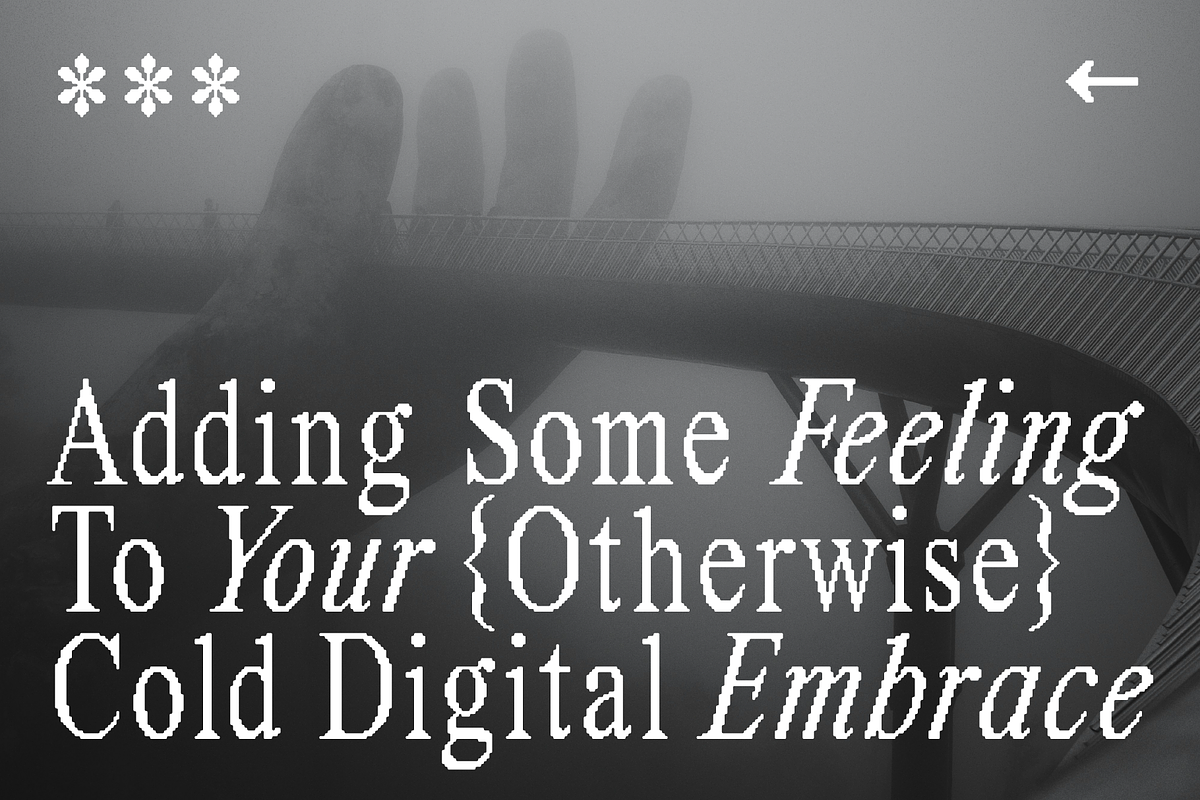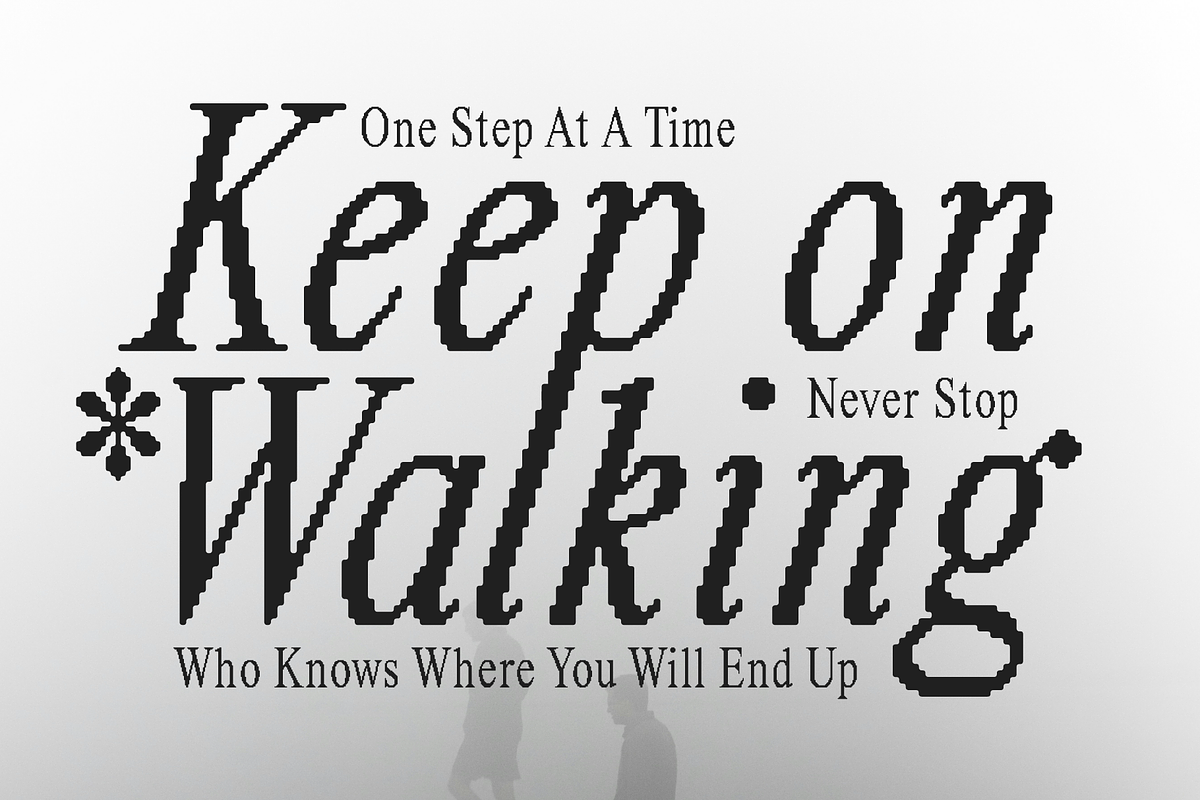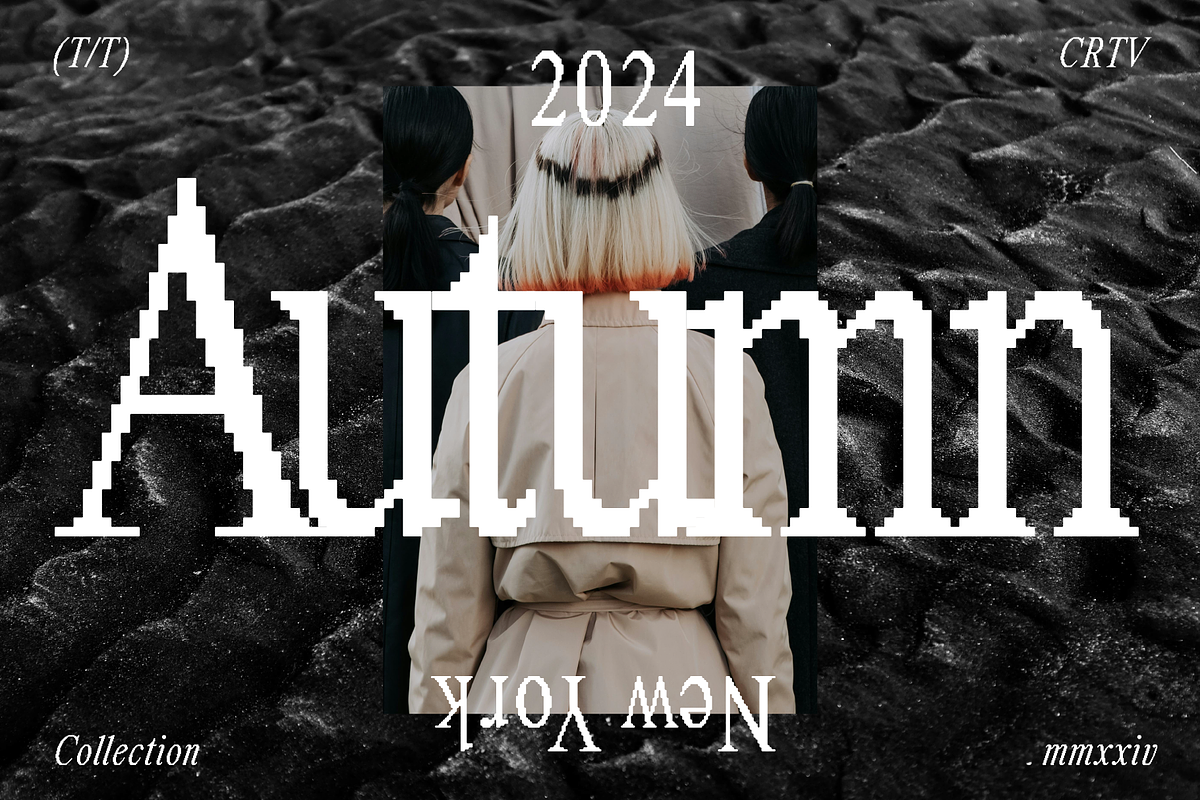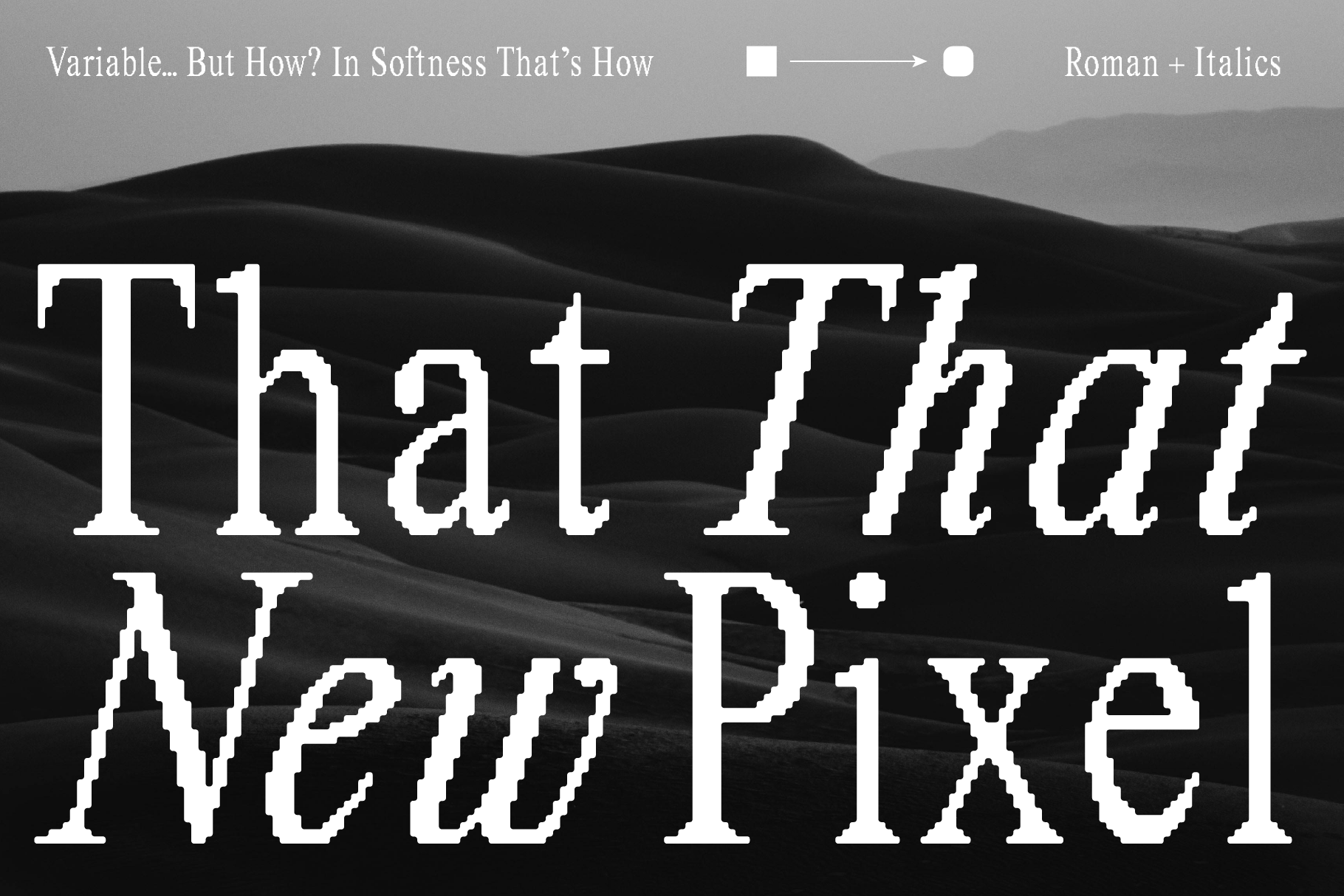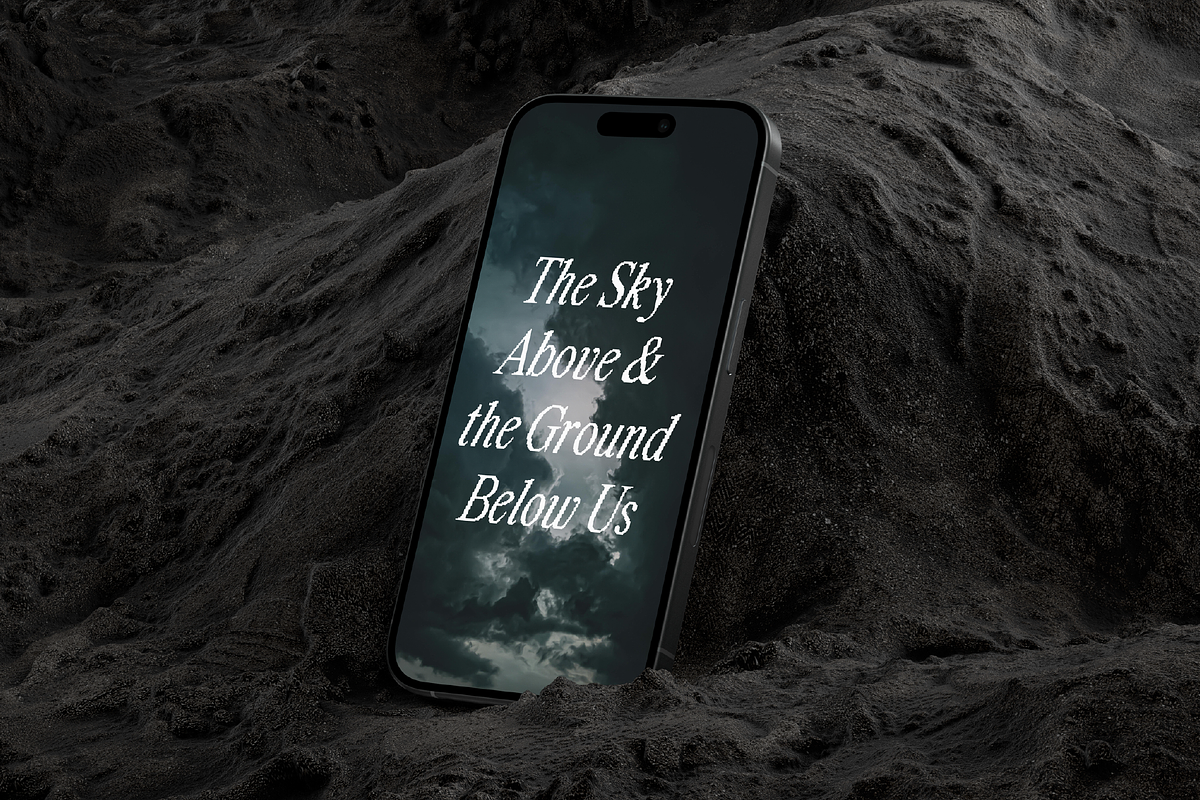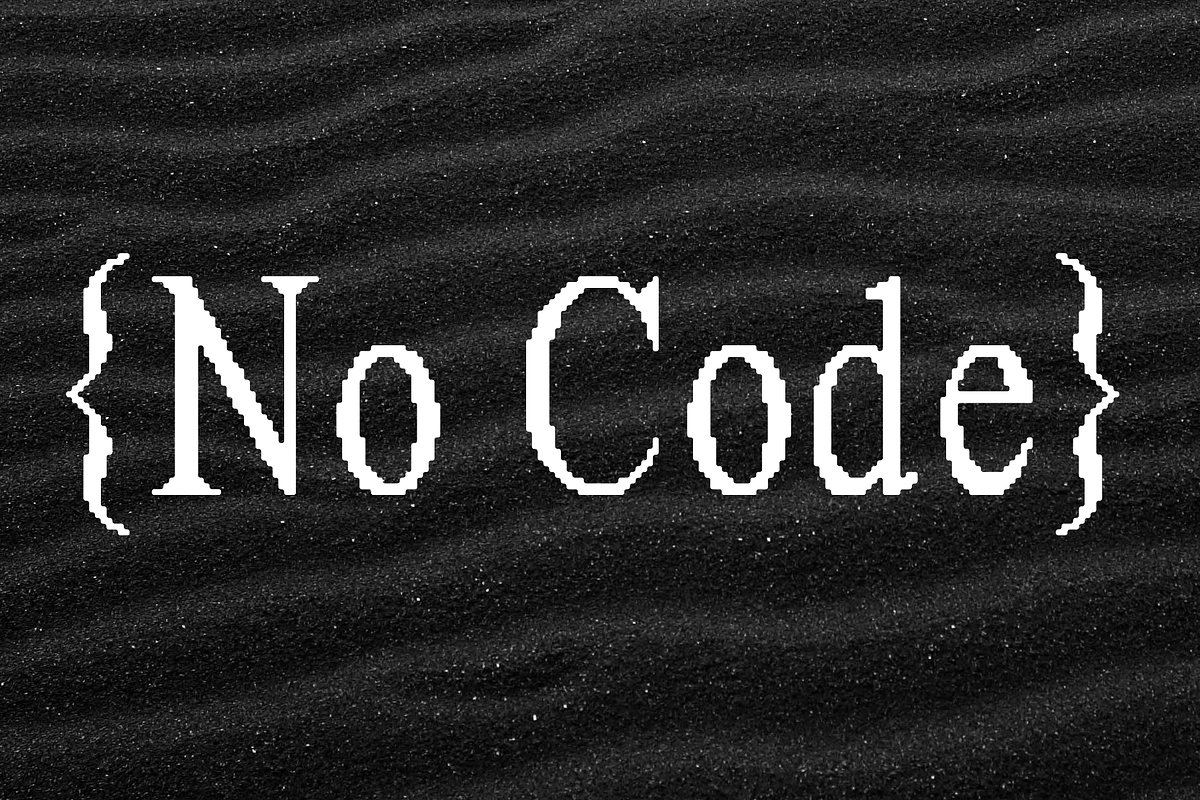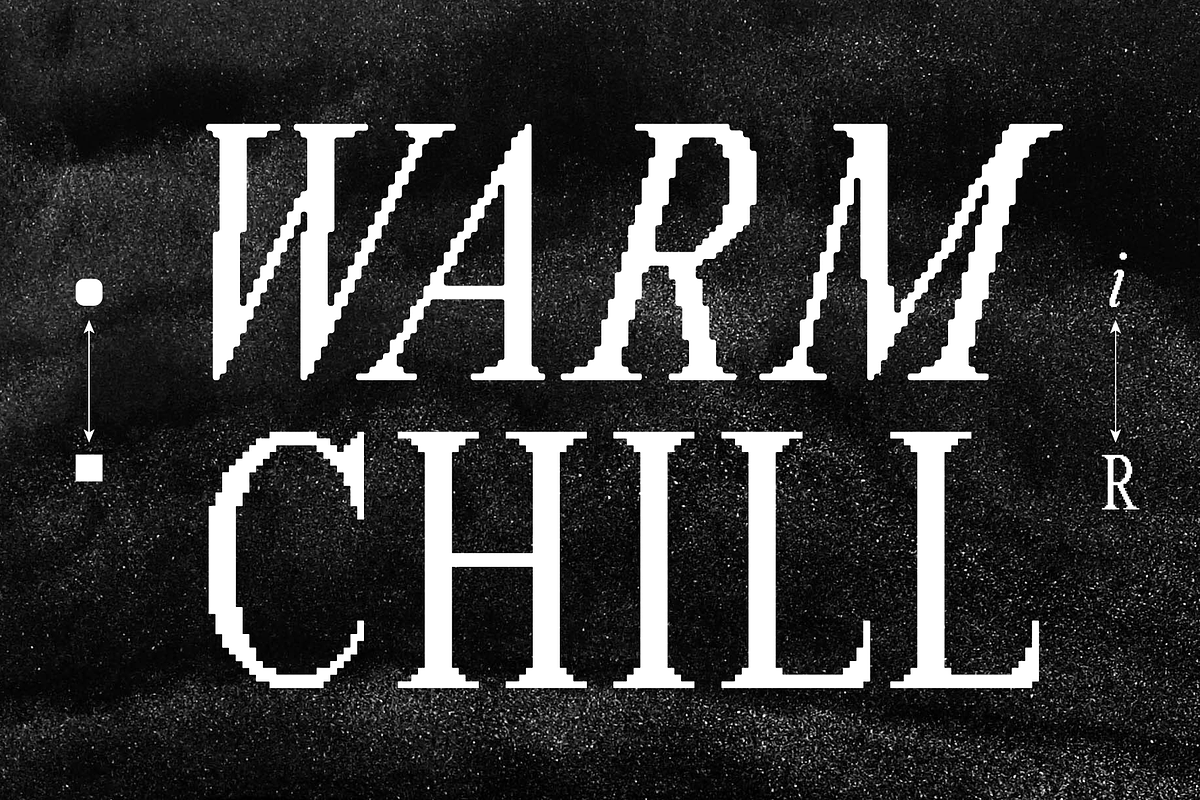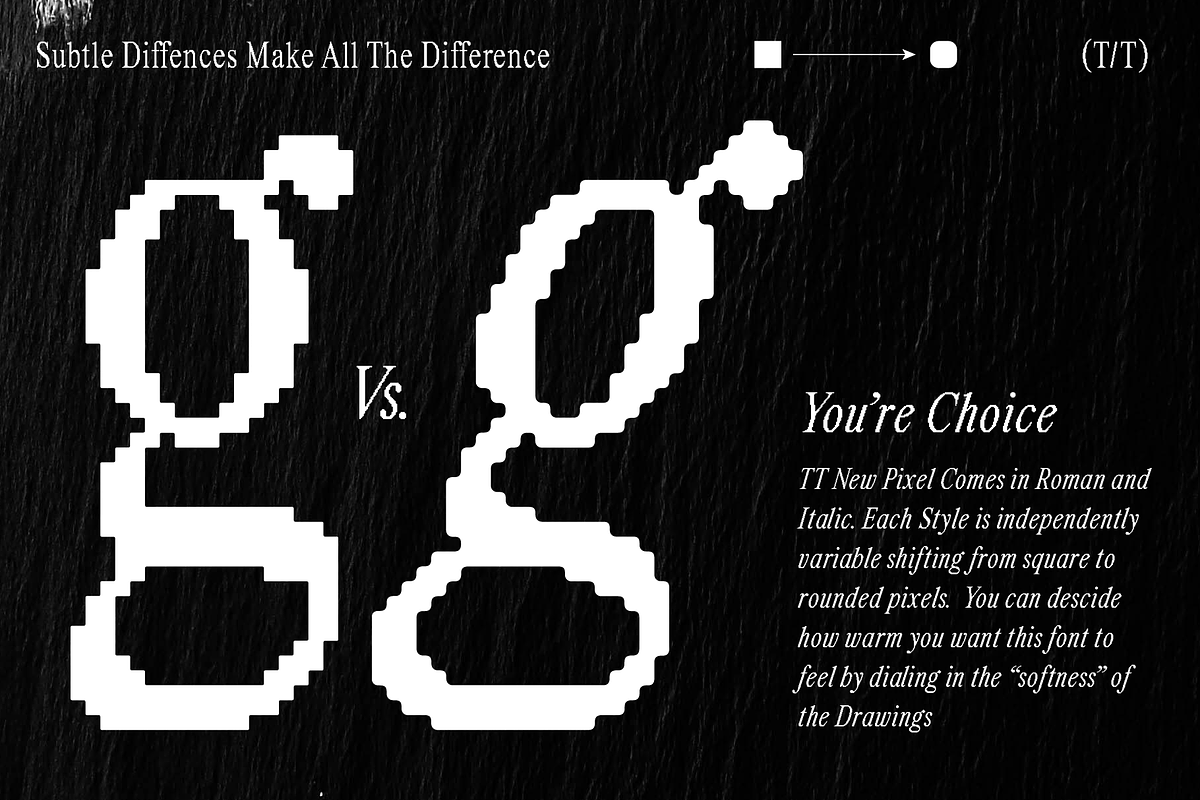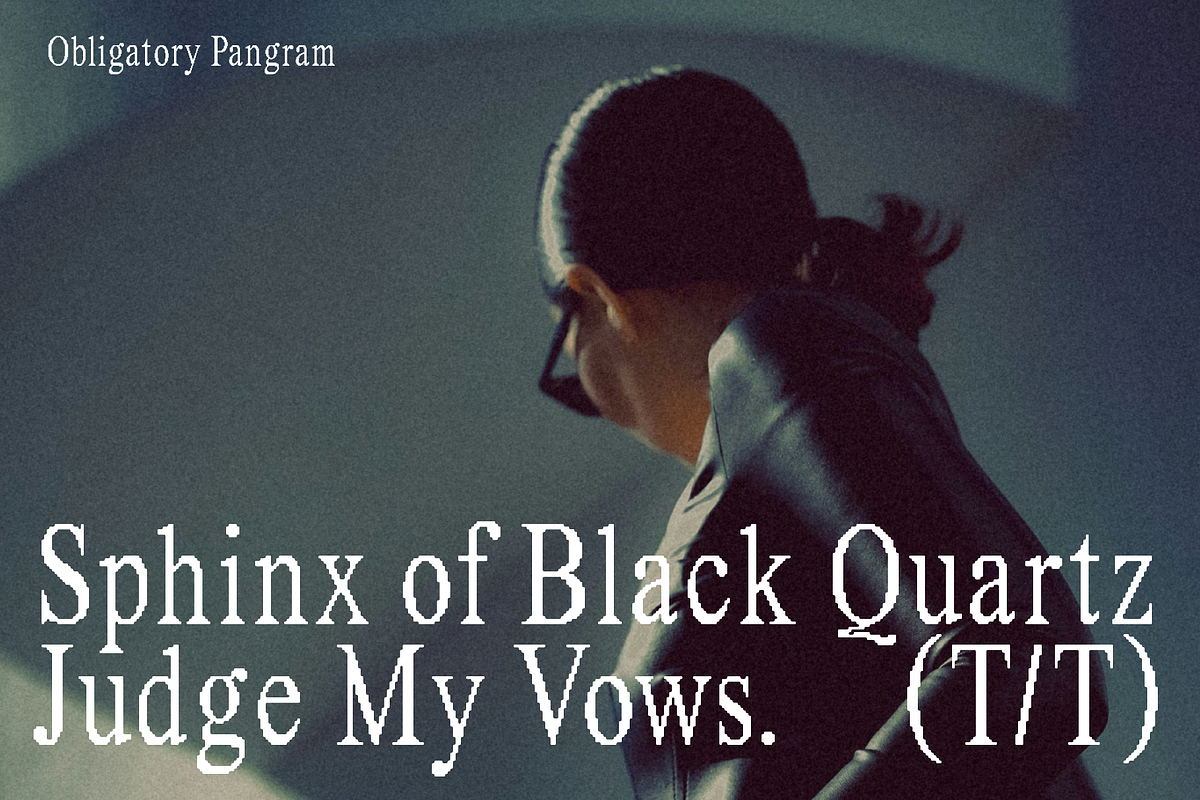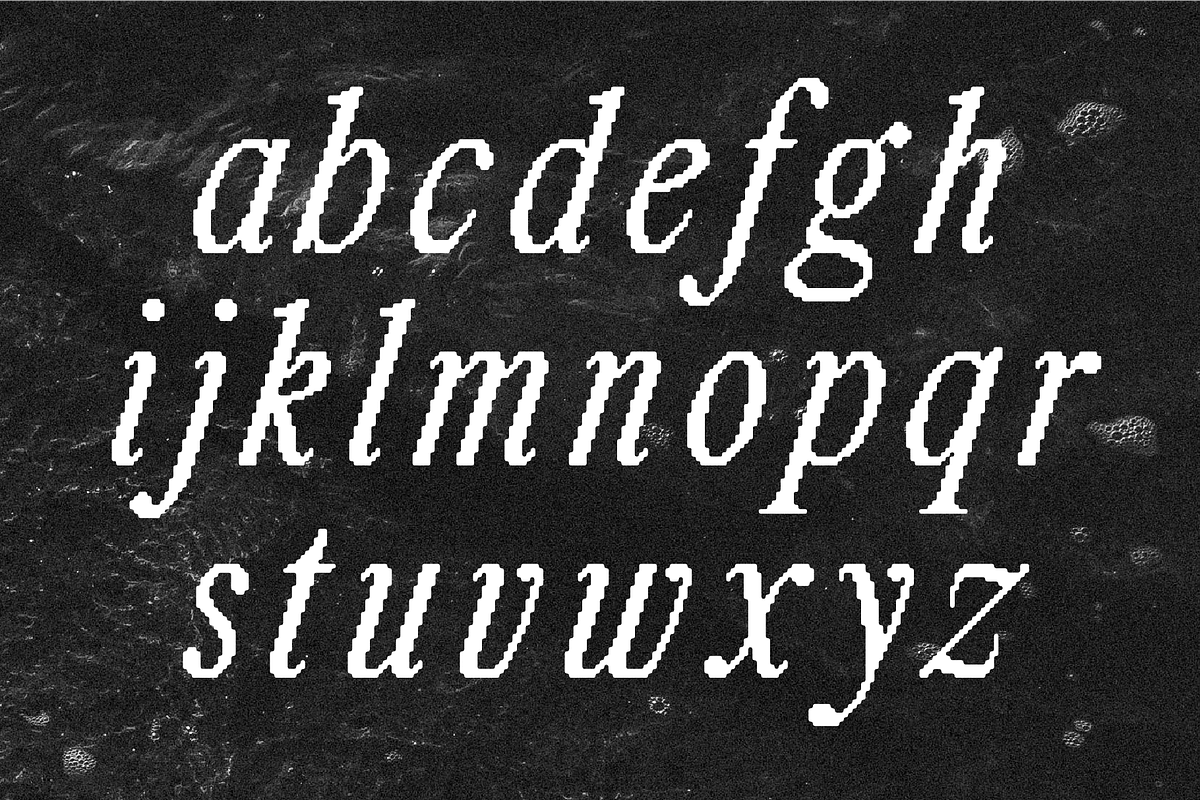
Retro Variable Pixel Font.
This Retro Pixel Font is not your average Pixel Font. That That New Pixel Is variable so you can ad some roundness to the letters. This Font comes in roman and italic. It is perfect for giving your retro or contemporary design work an elevated look that most pixel based font miss. Perfect for Posters, or magazines, Products, logos, branding, social media or whatever else you are looking to give some retro warmth to.